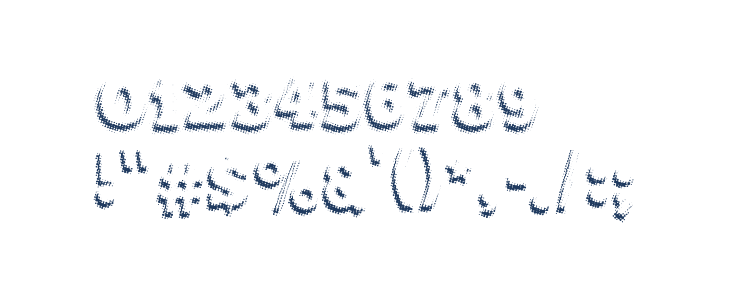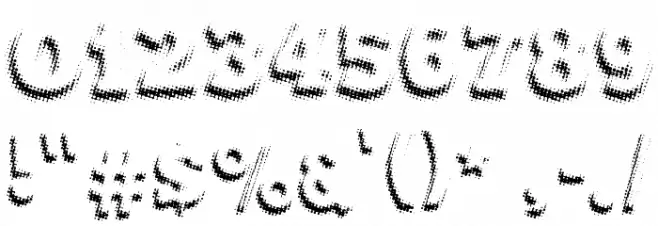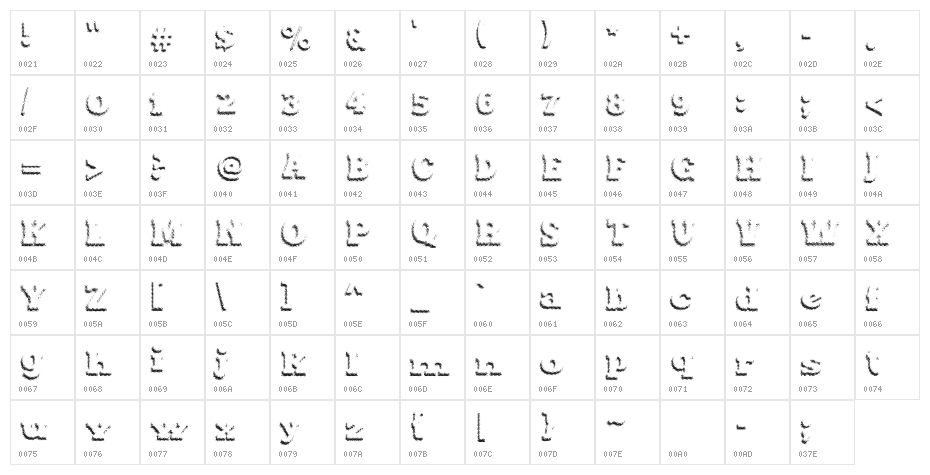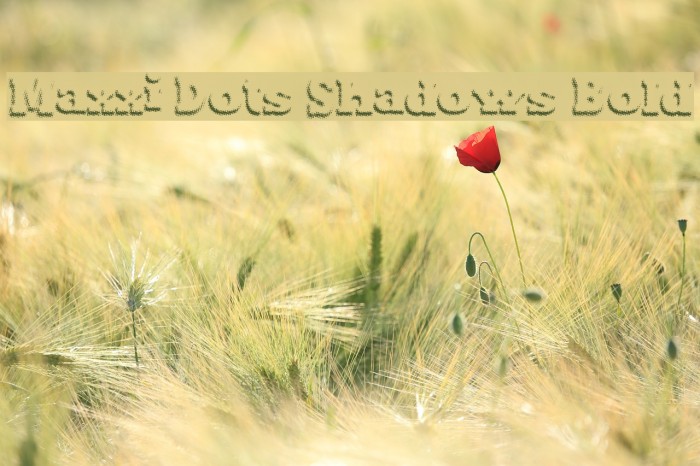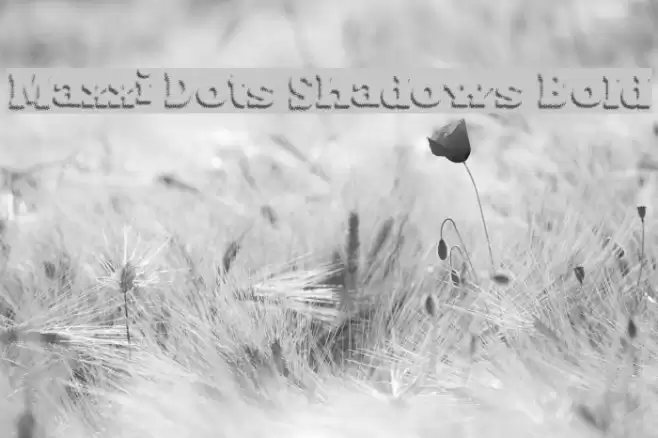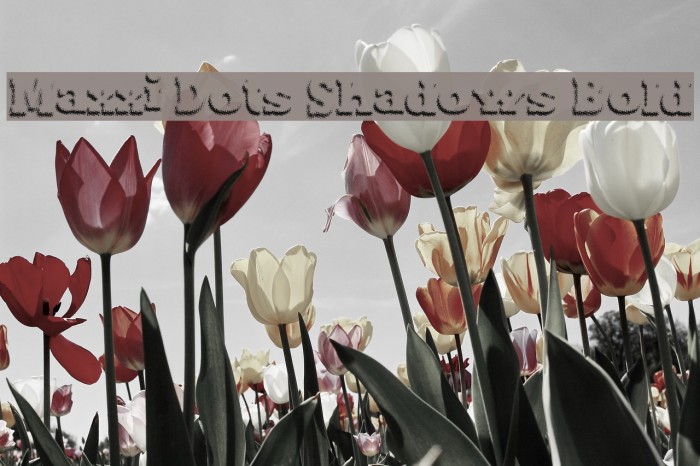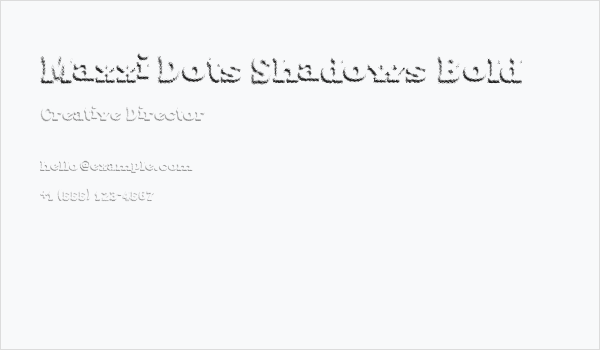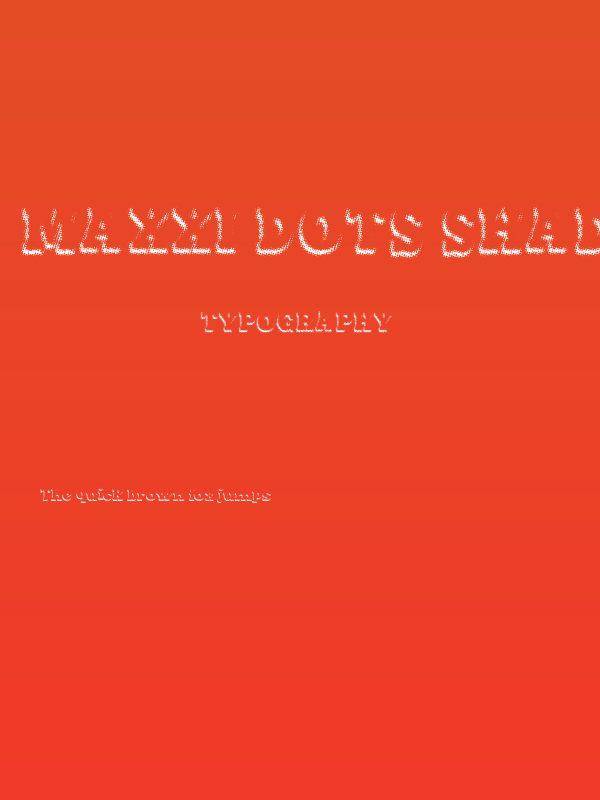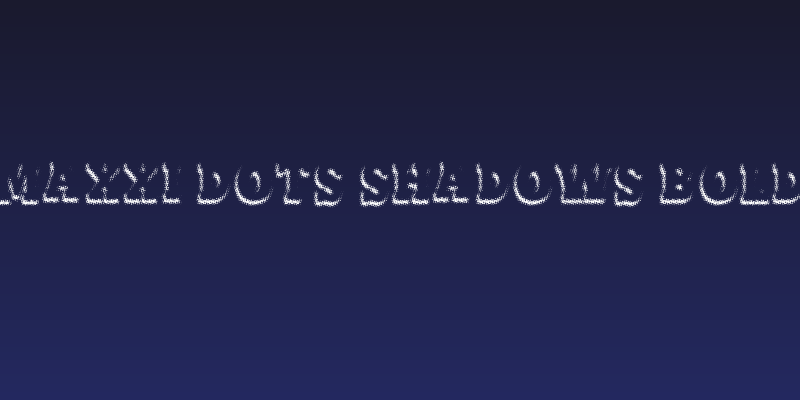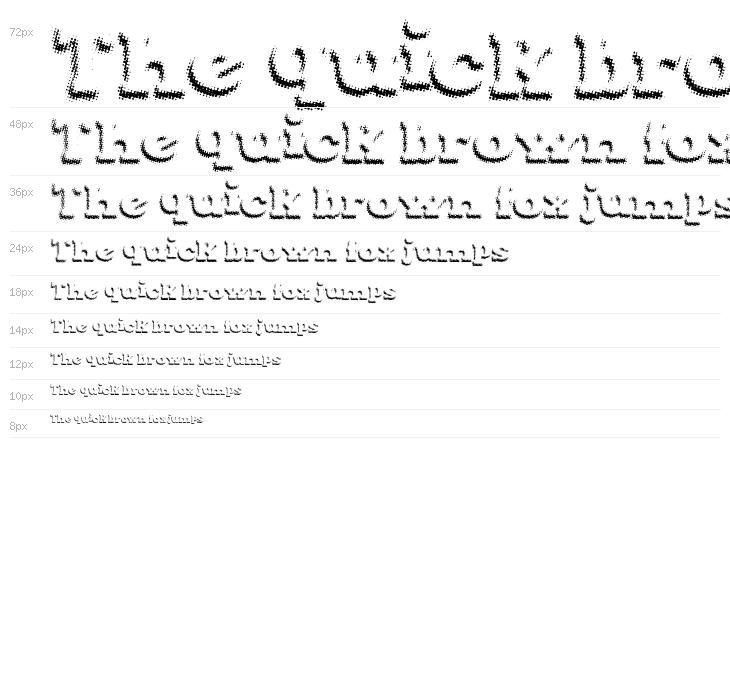
Maxxi Dots Shadows Bold Font
Maxxi Dots Shadows Bold Description
This font features a bold and playful design with a unique dotted shadow effect that adds depth and dimension to each character. The uppercase and lowercase letters maintain a consistent style, with rounded edges and a slightly condensed form. The numbers and special characters follow the same design principles, ensuring uniformity across all glyphs. The dotted shadows create a sense of movement and dynamism, making it ideal for eye-catching designs. The overall appearance is both modern and retro, offering versatility for various creative projects.
Overall StyleModern, Retro
Proposed ProjectsIdeal for posters, logos, headlines, and any design requiring a dynamic and eye-catching font.